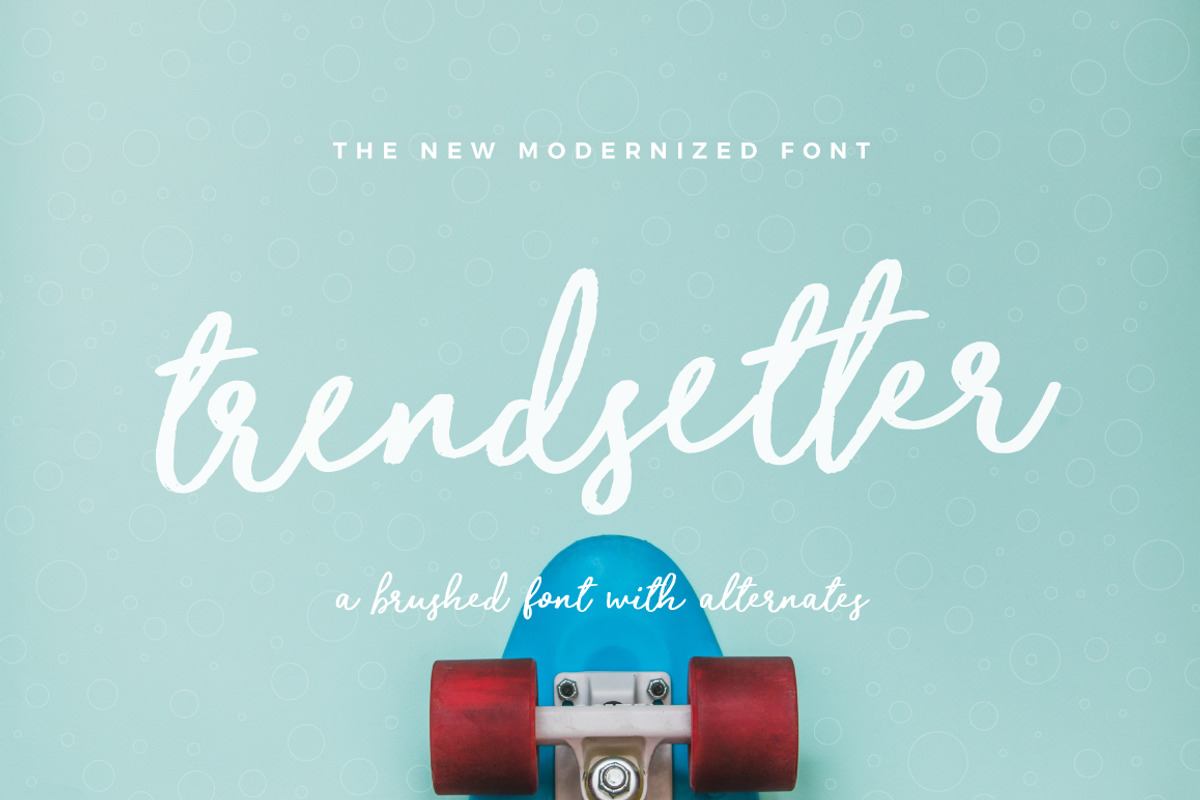
Trendsetter Font Free Download
Bold, stylish, and full of flair, Trendsetter Font Free Download is a modern display typeface designed to make a statement. Perfect for logos, branding, posters, fashion design, social media graphics, and creative projects, this font brings a contemporary and energetic vibe to your typography.
With its clean lines, unique character shapes, and striking design, Trendsetter is ideal for projects that need to stand out and capture attention. Whether you’re crafting a trendy brand identity, creating an eye-catching campaign, or working on a fashion-related design, this font adds style and boldness to your work.